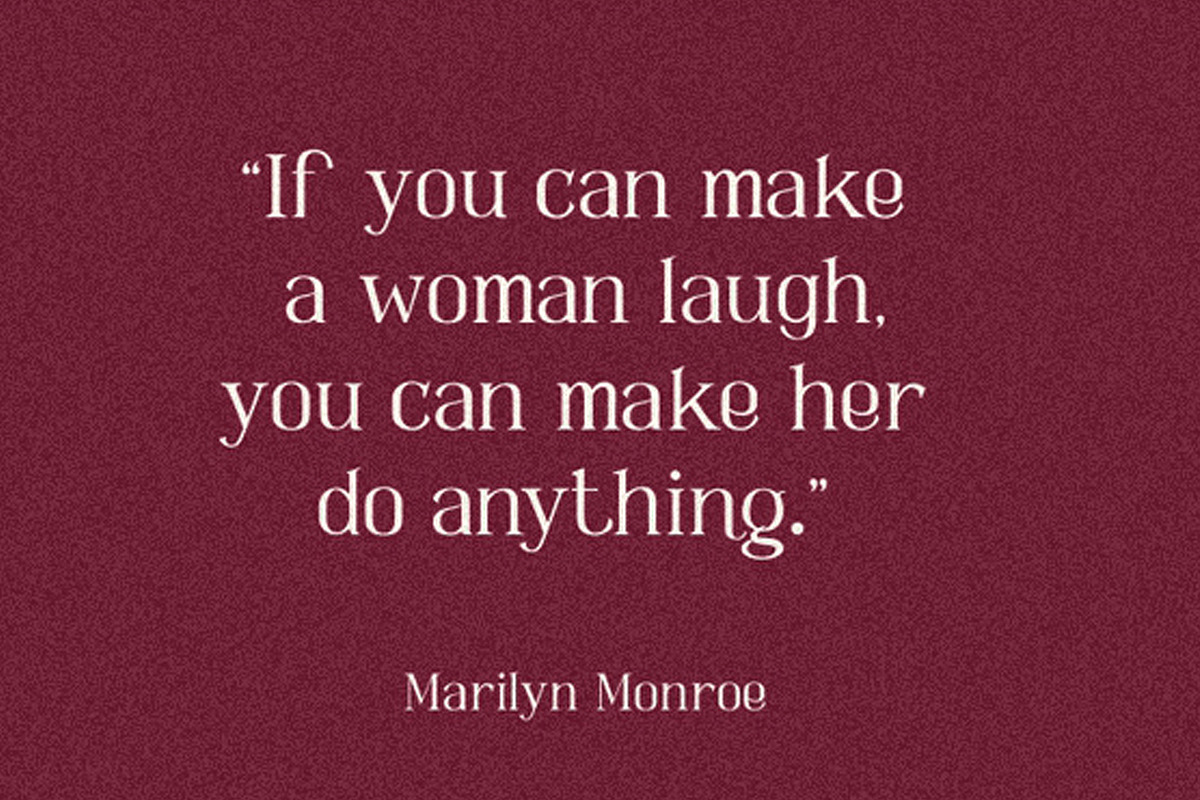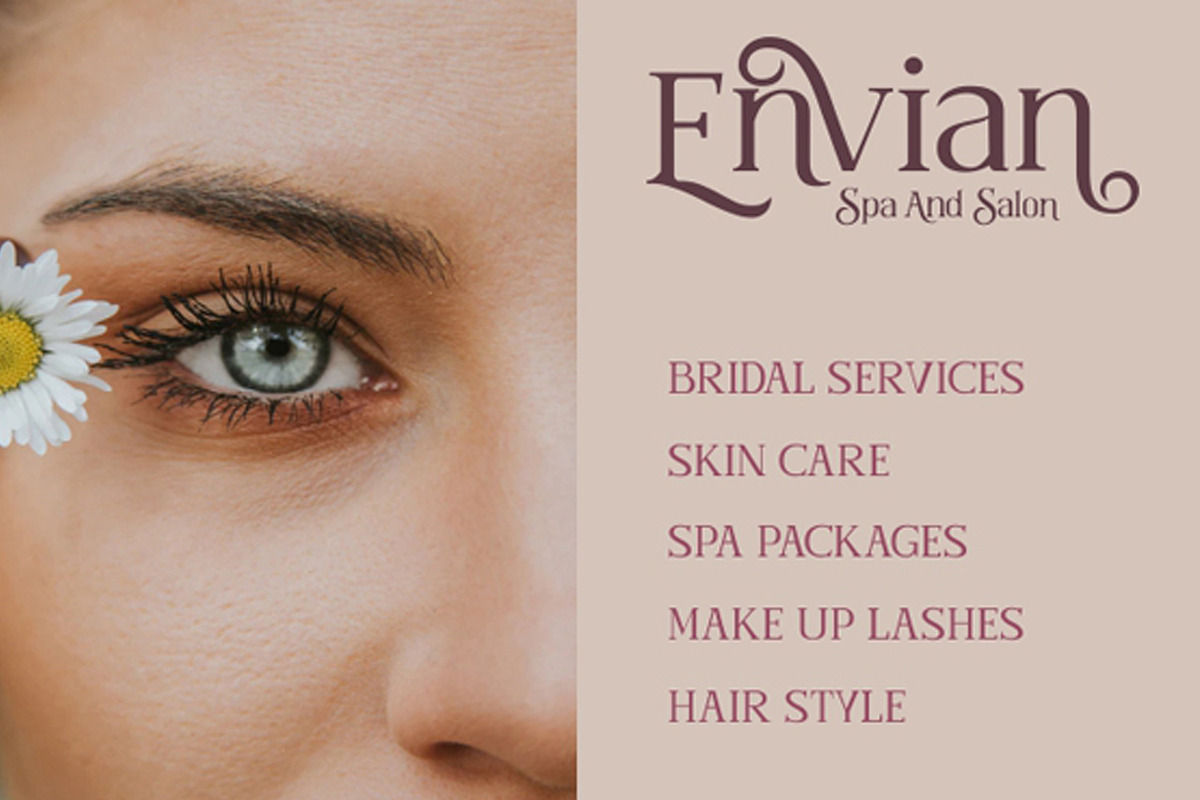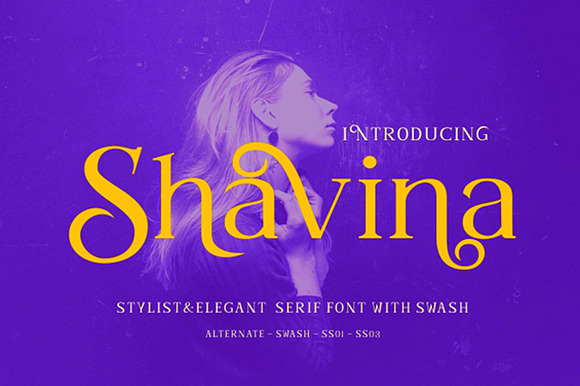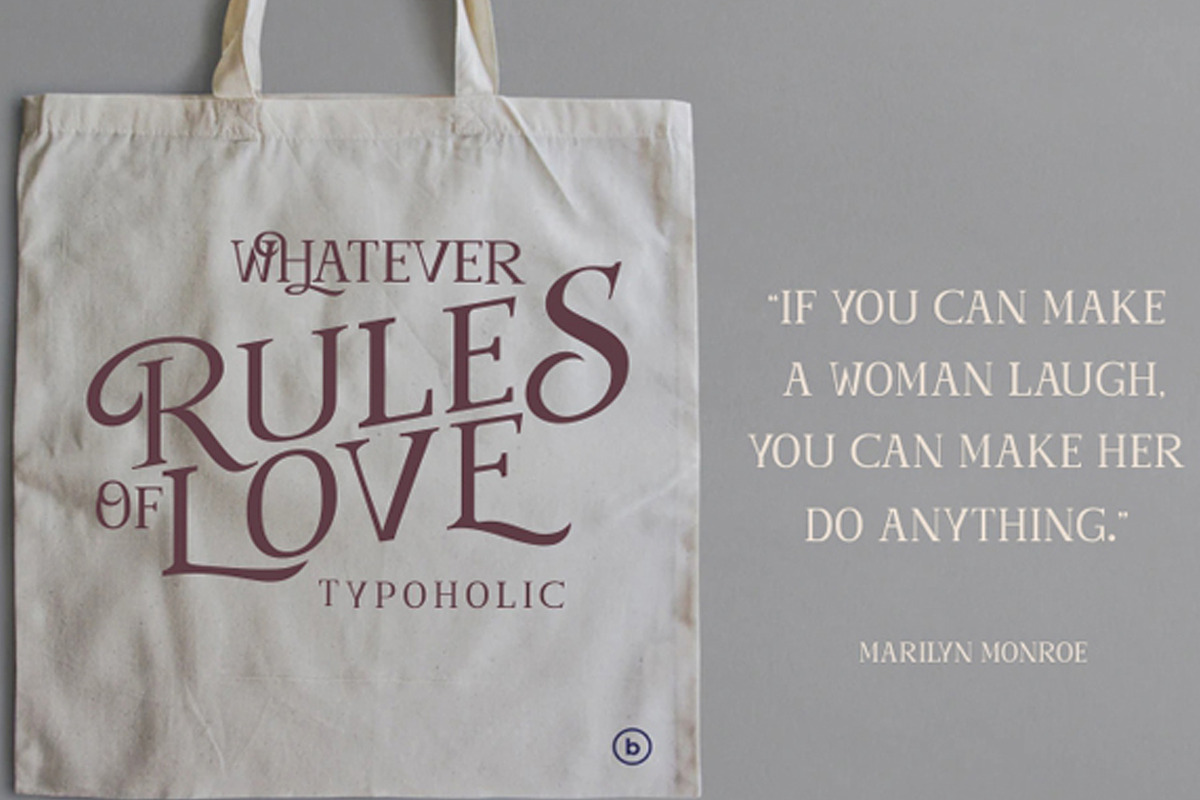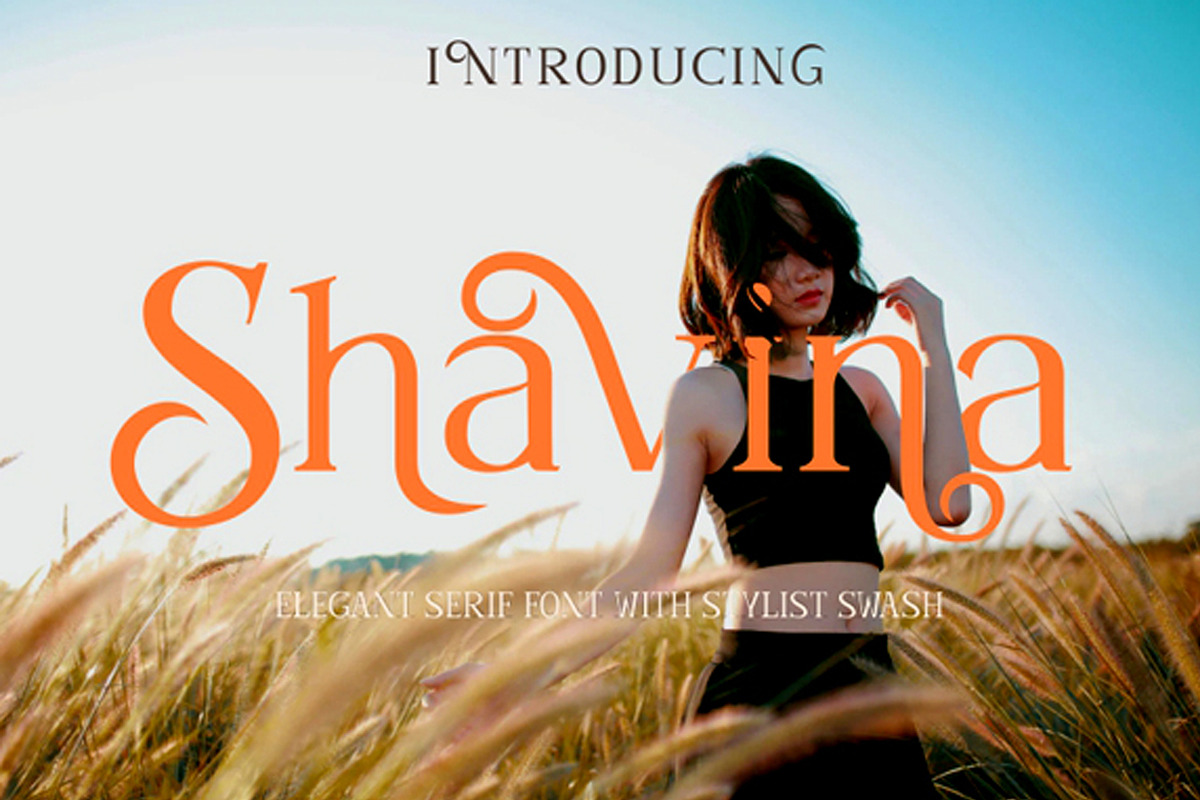
Shavina Serif Font with beauty swash
Shavina Serif Fontare fonts that are made with elegant feminine pretty concepts and have alternatives with beautiful swash curves for the purpose of being used as logotypes, text quotes, logo designs for beauty products, and elegance that can also be applied to other property products. font features like:
OpentypeLigatureSaltSS01-SS03
Shavina Serif Font with beauty swash by SHEILLA fits naturally into Branding, posters, packaging, typography.